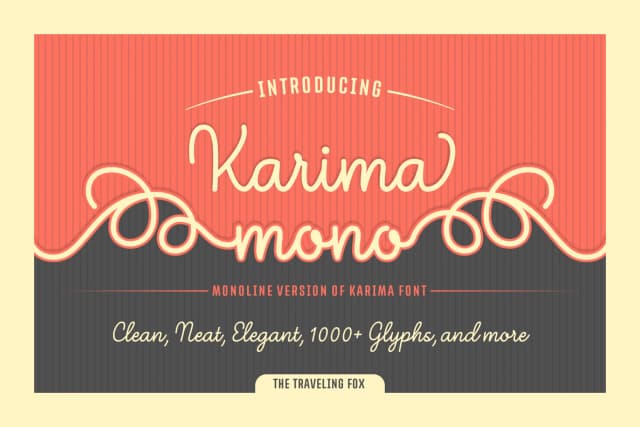
1 / 8About Karima Font
Karima by The Traveling Fox is an elegant handwritten script that brings warmth and personality to design projects across all skill levels. With over a thousand carefully crafted glyphs and support for multiple languages, this versatile typeface captures the sophistication of hand-lettering while maintaining practical functionality for real-world use. Whether you're creating formal designs or personal creative projects, Karima's extensive character set provides the flexibility to explore virtually any visual concept you envision.
The collection of more than twenty stylistic alternates makes Karima particularly well-suited for wedding invitation suites, custom stationery designs, and personalized monogram work. Graphic designers frequently select it for sophisticated social media graphics and branded packaging for boutique skincare labels, while crafters value its range for hand-lettered gift tags, greeting cards, and scrapbook pages that feel genuinely personal rather than generic. The variety of letterforms allows you to establish a cohesive visual identity across projects while ensuring each one maintains its own fresh, distinctive character. Whether you're designing high-end event materials, creating print-on-demand Etsy product labels, or producing intimate handmade stationery, the extensive alternates provide sufficient variation to ensure every project captures its own unique, authentic character.
Karima Font is a script font that shines as a display or heading face. Pair it with a clean sans-serif or serif font for body text β the contrast creates a clear hierarchy while the two styles stay balanced and easy to read.